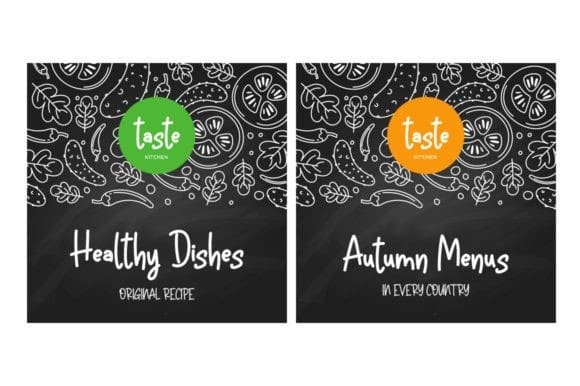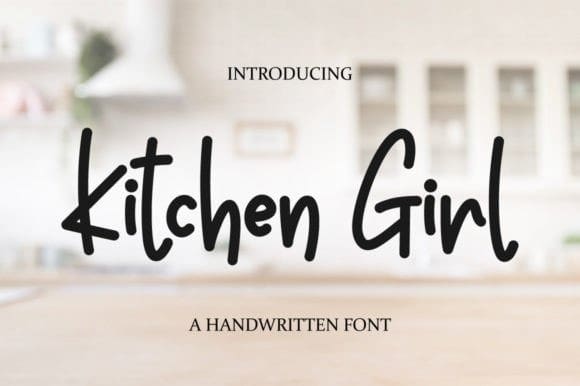
Kitchen Girl Font
Kitchen Girl Font is a cute and casual handwritten font. Dainty and joyful, this font will be ideal for writing wedding invitations, cards, or any other design that may need a romantic, personalized touch!